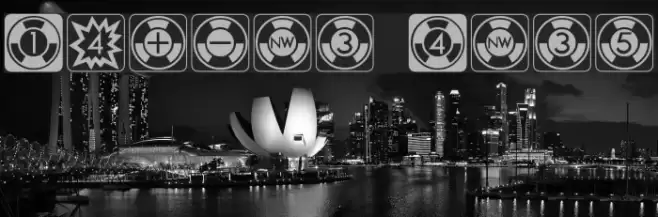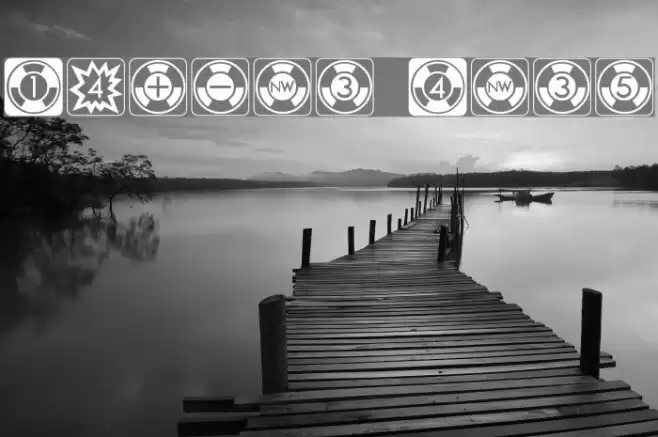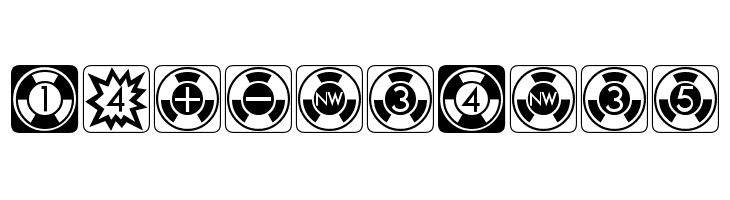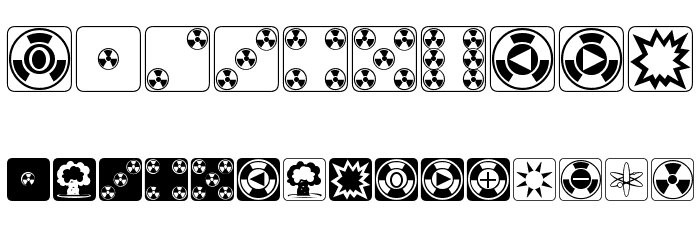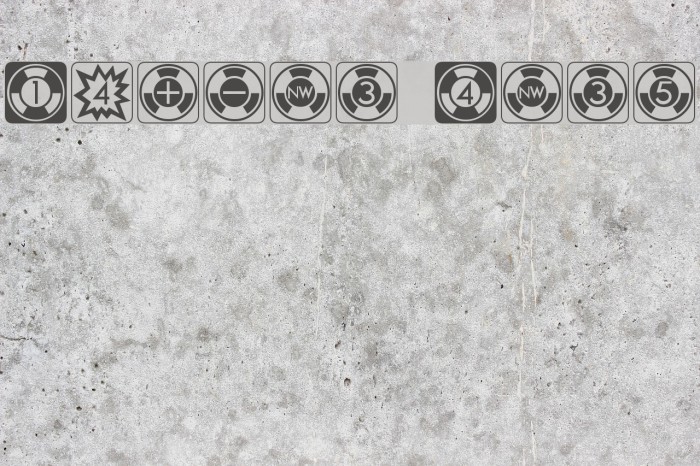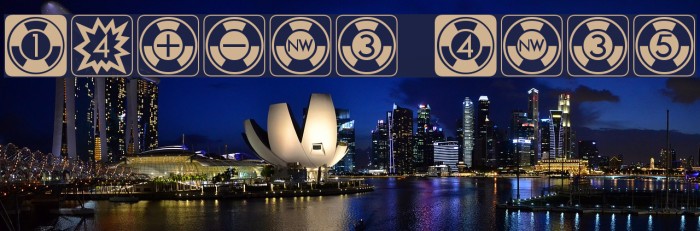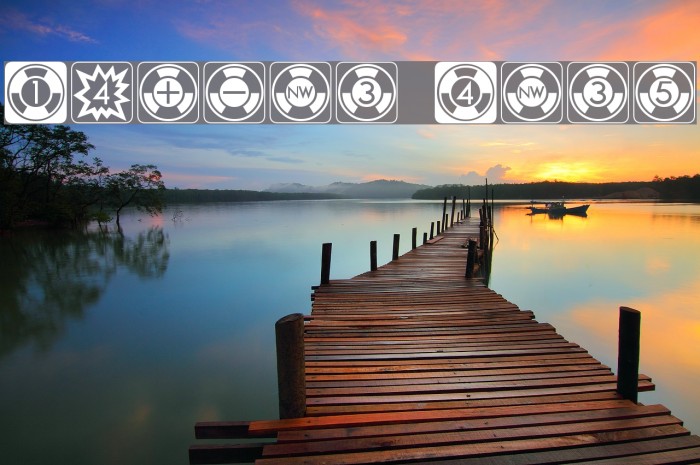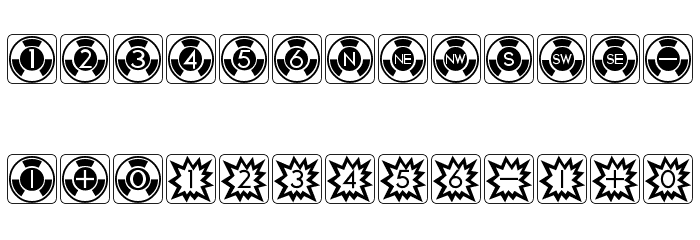
Atomic Dice Font
Atomic Dice Description
This set of symbols is designed with a bold, modern aesthetic, featuring a variety of atomic and directional icons. Each symbol is enclosed in a square, providing a consistent and structured appearance. The use of black and white creates a high contrast, making each symbol stand out distinctly. The design incorporates elements such as arrows, numbers, and atomic symbols, each with a unique style that combines geometric shapes with a playful, almost futuristic theme. The symbols are versatile, suitable for use in games, educational materials, or any project requiring a distinctive and thematic set of icons.
A bold, modern set of atomic and directional symbols with high contrast from Uncategorized fonts.
- Proposed Projects: Ideal for board games, educational tools, or thematic graphic design projects.
- Use Case: Icons, Game design, Educational materials